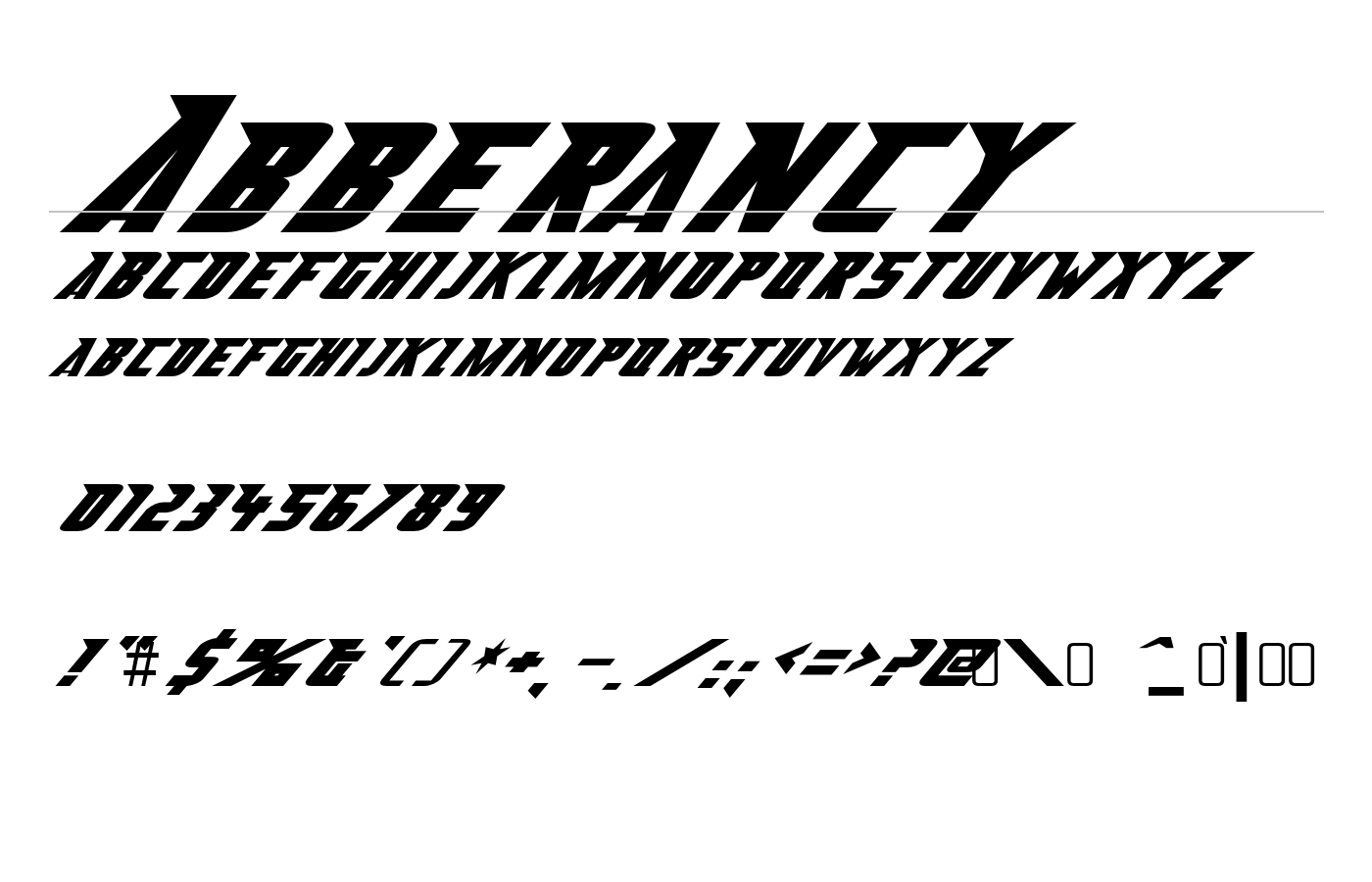
Abberancy is a bold, condensed sans serif font with sharp, angular lines and a strong forward slant, giving it a dynamic and futuristic feel. Its high-contrast strokes and geometric shapes make it perfect for impactful headlines, sports branding, and modern logos where energy and motion are key. This font stands out in designs needing a striking, aggressive style that captures attention quickly.
Abberancy Font
About Abberancy Font